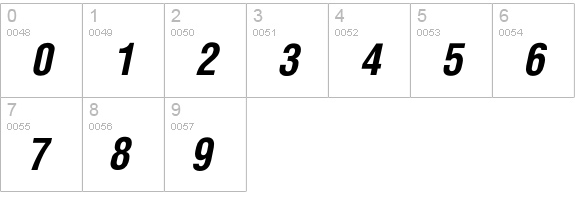
HallmarkeCondBoldOblique Font Details
HallmarkeCondBoldOblique is a stunning font that exudes elegance and sophistication. Its bold and oblique design adds a touch of modernity and uniqueness to any project it is used in. This font is perfect for creating eye-catching headlines, attention-grabbing logos, and stylish branding materials. The sleek and stylish curves of HallmarkeCondBoldOblique make it a versatile choice for various design applications. Whether you are designing a poster, a website, or a business card, this font will effortlessly elevate your design and make it stand out from the crowd. One of the best things about HallmarkeCondBoldOblique is that it is freely available to download at FontsMarket.com. This means that you can easily access and use this font without any hassle or cost. Its availability as a free download makes it an excellent choice for both personal and commercial projects, allowing you to unleash your creativity without any limitations. So, if you are looking for a font that combines boldness, elegance, and a touch of modernity, HallmarkeCondBoldOblique is the perfect choice for you. Download it for free at FontsMarket.com and watch your designs come to life with its stunning and captivating aesthetic.